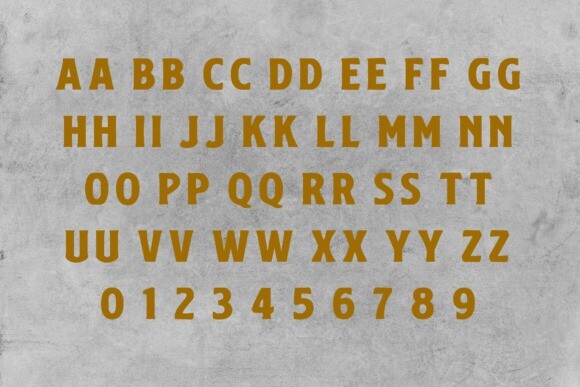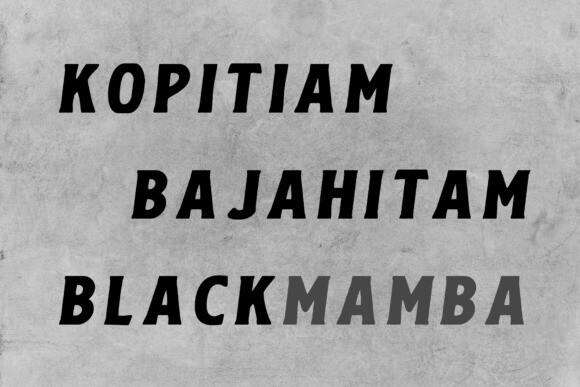
Maevricks Font
Designer: anomali.bisu
Maevrick Font is a typographic masterpiece that effortlessly combines contemporary design elements with a bold and commanding presence. This font is a visual embodiment of sophistication, featuring clean lines, strong geometric shapes, and a modern aesthetic that makes it stand out in any design context. The bold weight of the characters exudes confidence, making Maevrick an ideal choice for projects that demand attention and assertiveness.
The sharp and well-defined letterforms of Maevrick Bold Modern Font make it versatile across various design applications. Whether used for headlines, branding, or marketing materials, this font commands legibility and readability while maintaining a sense of avant-garde style. Its sleek and modern look is not only visually striking but also reflects a keen understanding of contemporary design trends, making it a go-to choice for designers looking to infuse their projects with a bold and cutting-edge appeal.